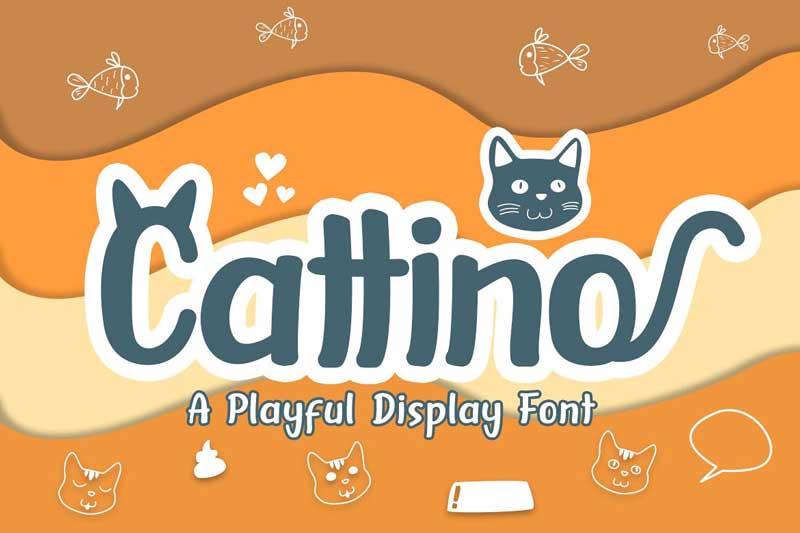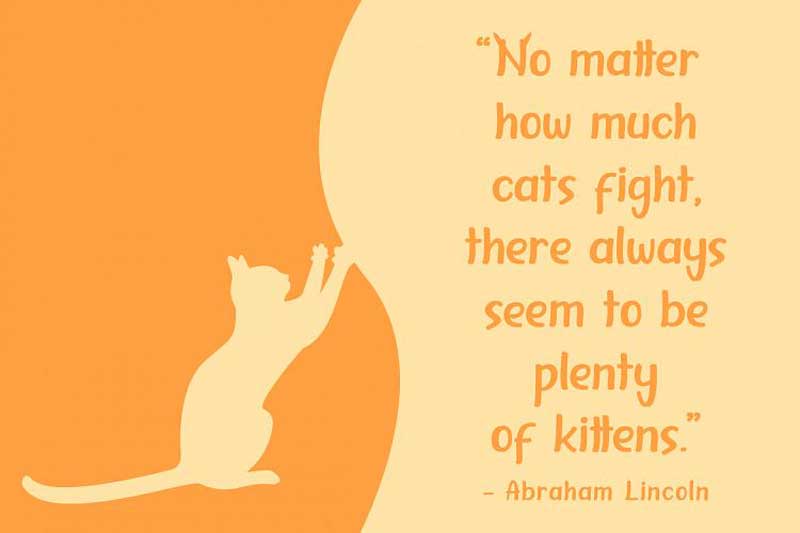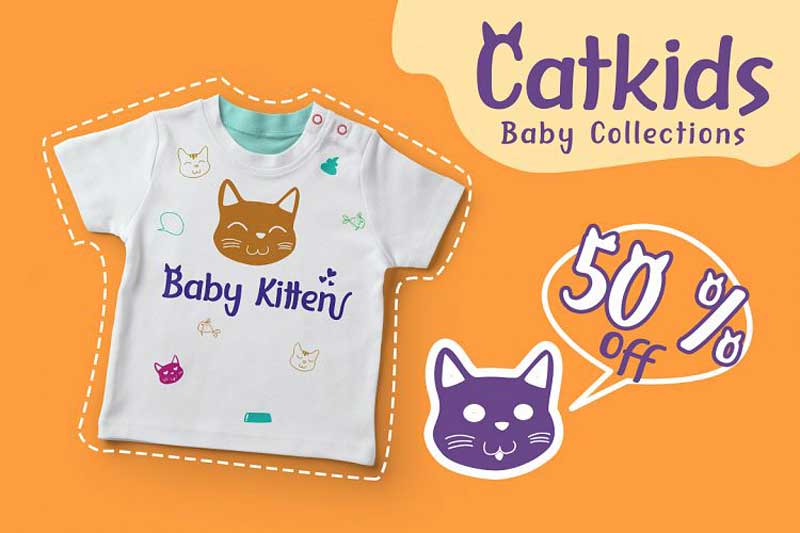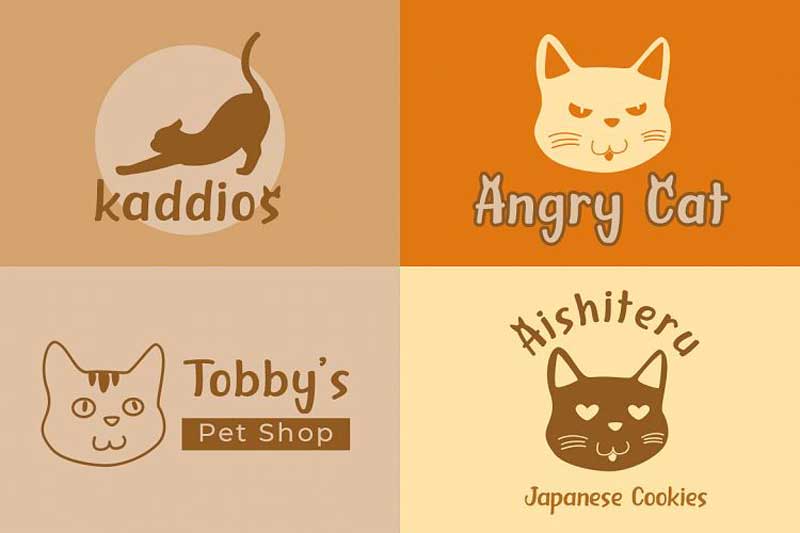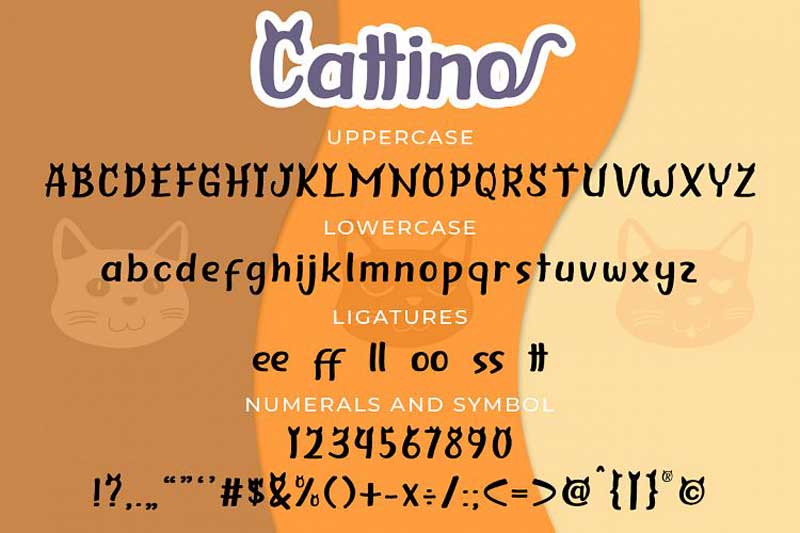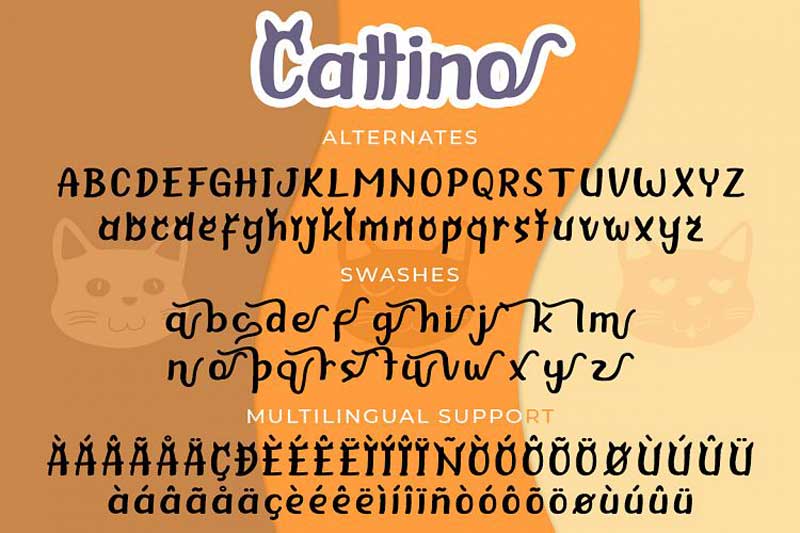
Cattino Full Font Family
Cattino is a unique display font. It has a friendly look and feels and it features gorgeous clipart. It will look amazing in any kitten related project!